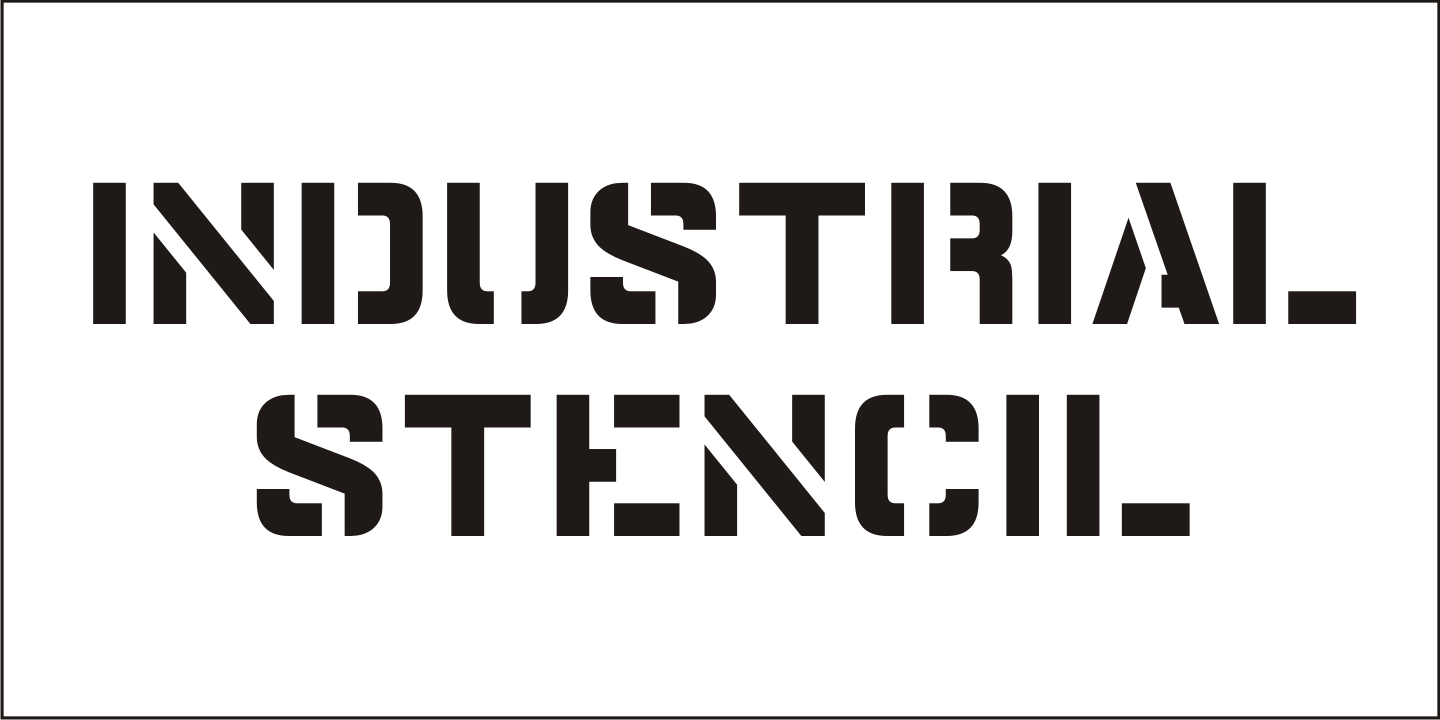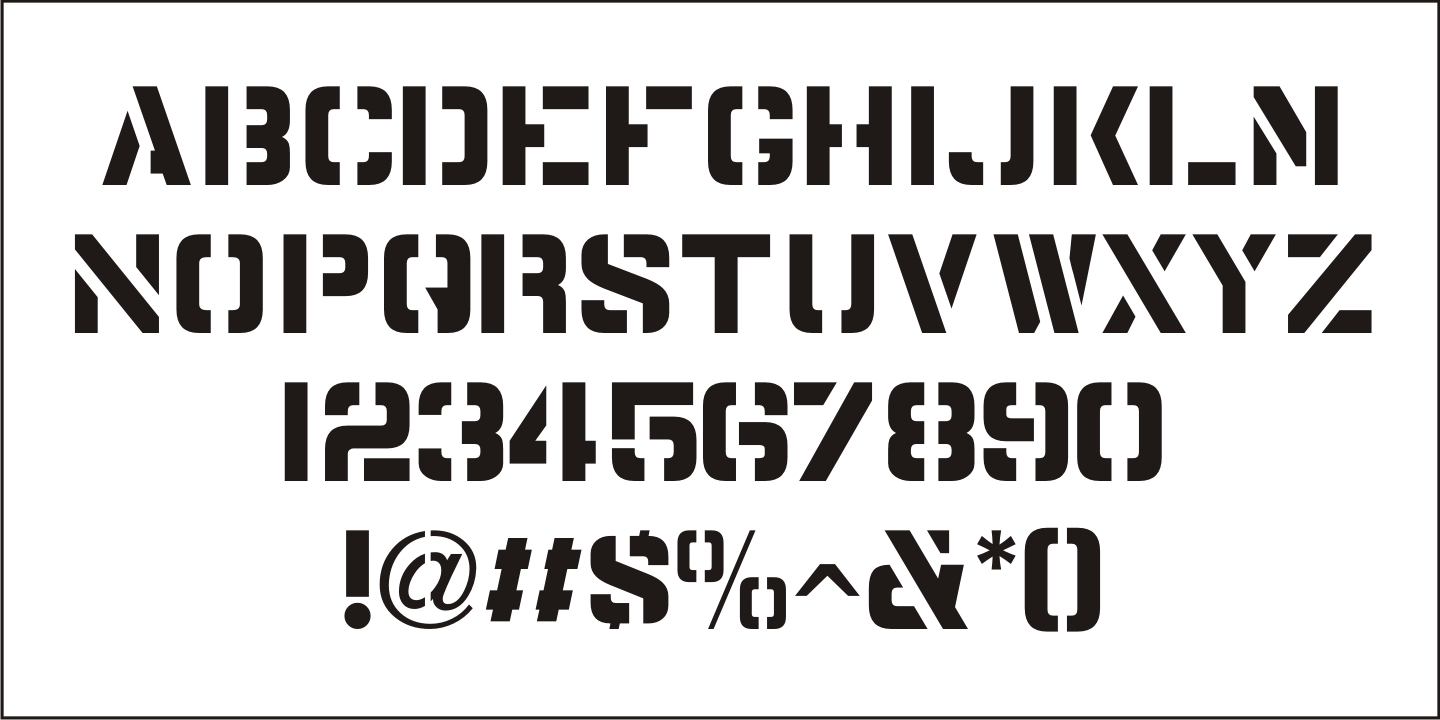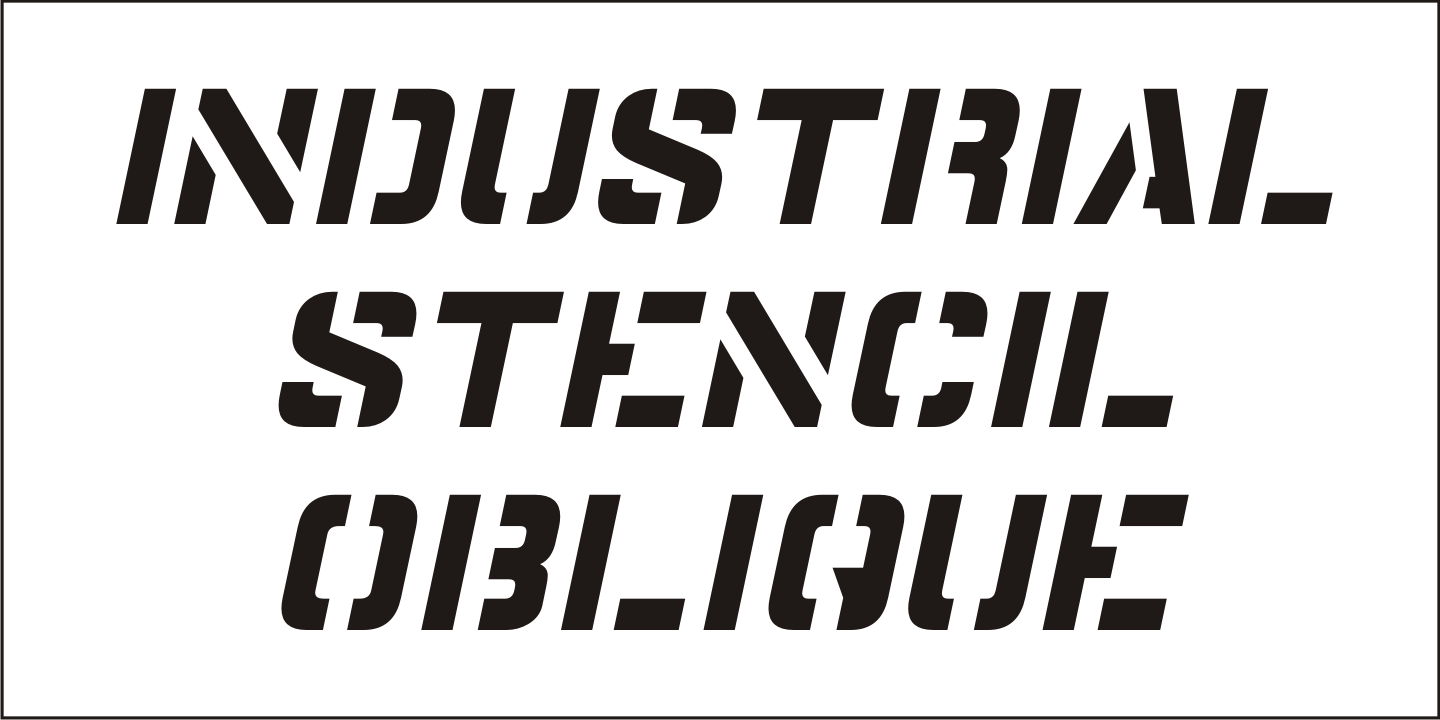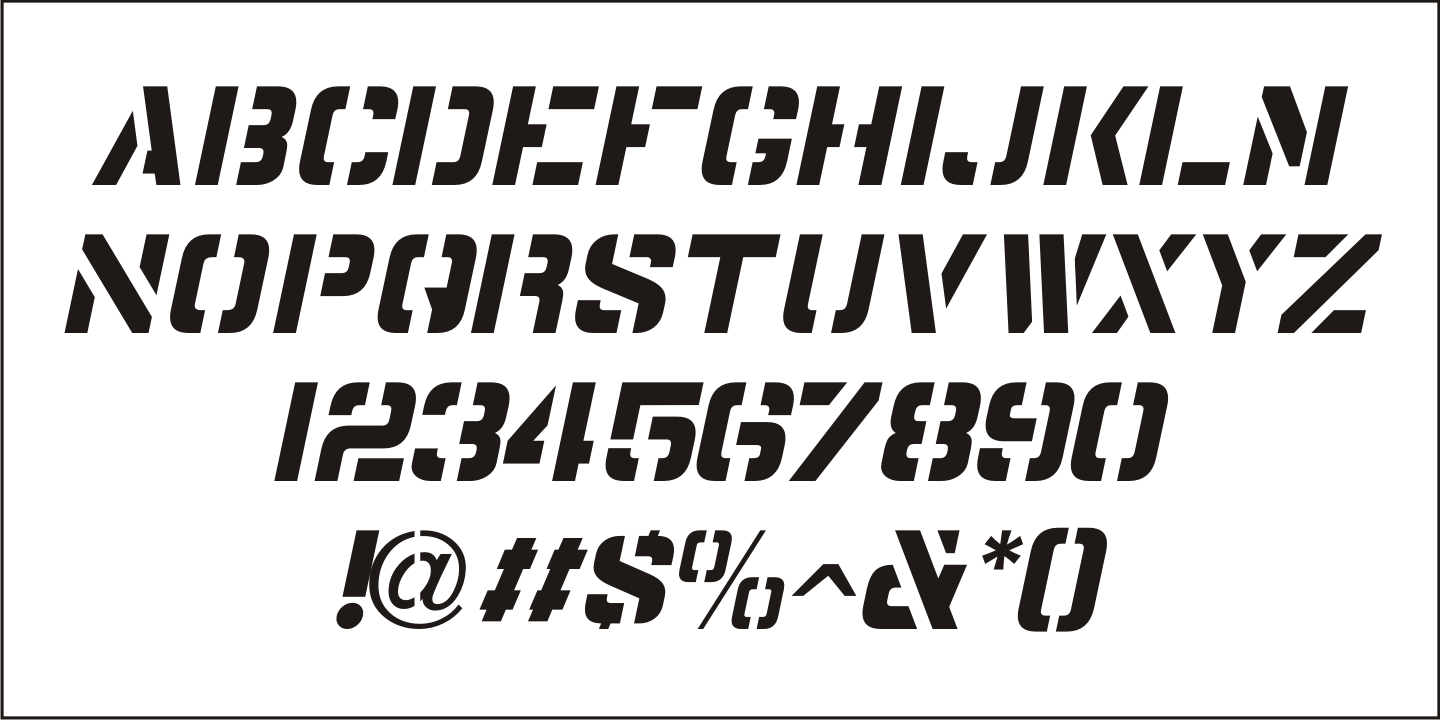
Industrial Stencil
Samples of vintage machine-punched stencils used for marking crates and cartons were spotted in an online auction. These served as the basis for Industrial Stencil JNL, which is available in both regular and oblique versions.
Industrial Stencil JNL Regular by Jeff Levine Fonts